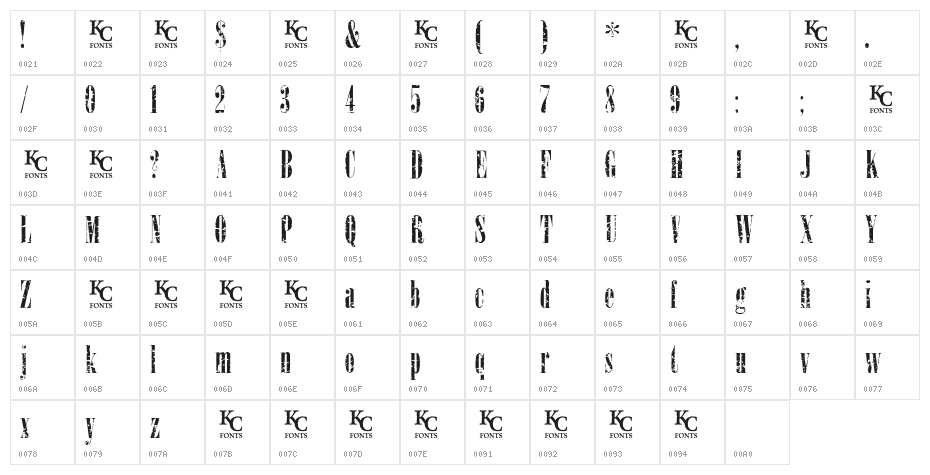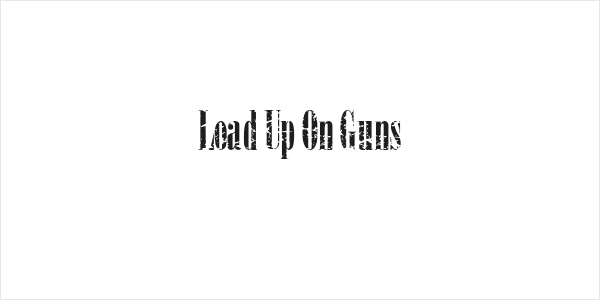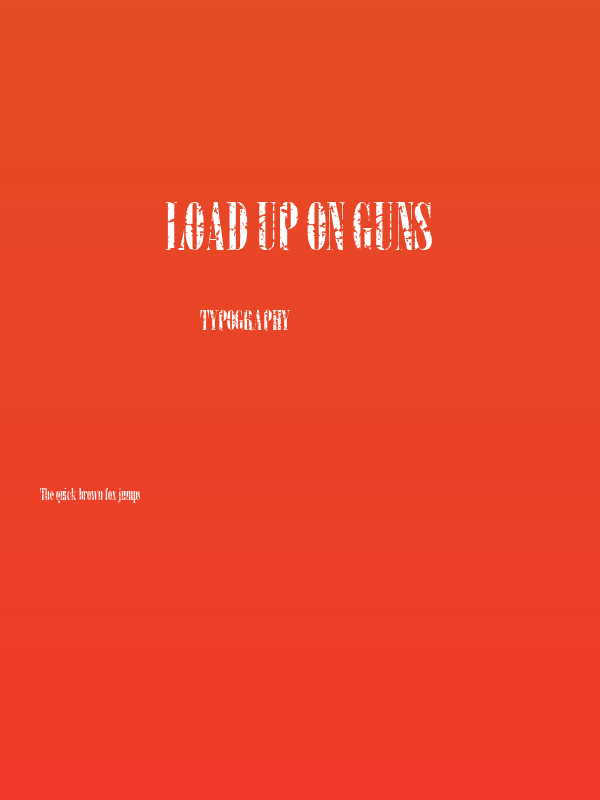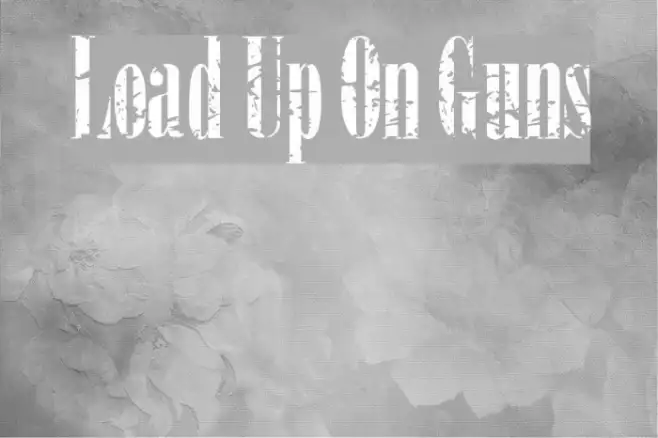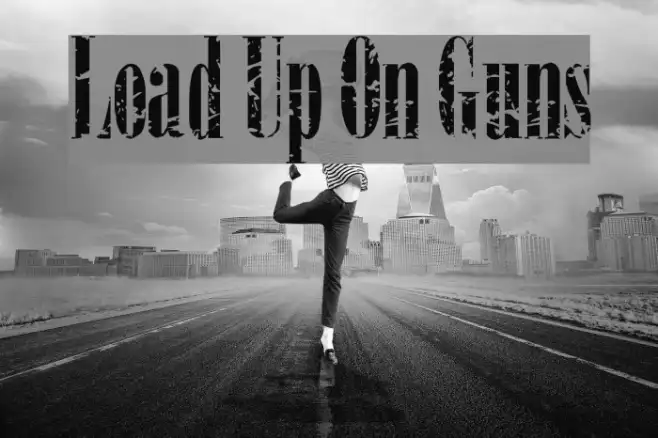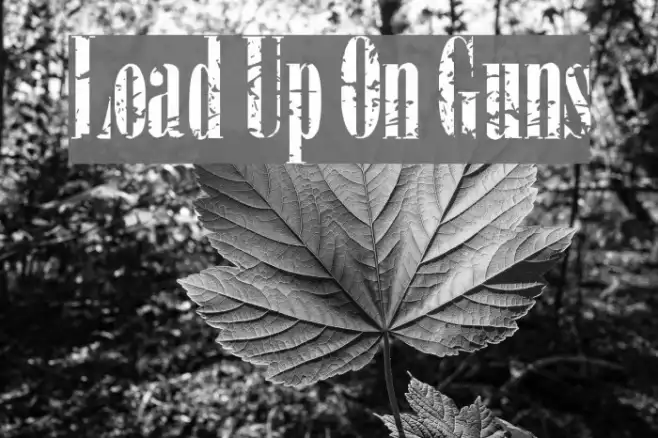
Load Up On Guns Font
Load Up On Guns Description
This font features a distressed, grunge style with a bold and impactful appearance. The characters are heavily textured, giving them a worn, rugged look that suggests a sense of edginess and rebellion. The uppercase and lowercase letters maintain a consistent height, while the numbers and special characters follow the same distressed aesthetic. The font's design is reminiscent of urban street art or vintage rock band posters, making it ideal for projects that require a bold statement. Its unique style is both eye-catching and memorable, perfect for creating a strong visual impact.
| Overall Style | Grunge, Urban, Edgy |
| Use Case | Headlines, Posters, Branding |
| Proposed Projects | Ideal for music album covers, event posters, urban-themed designs, and edgy branding projects. |